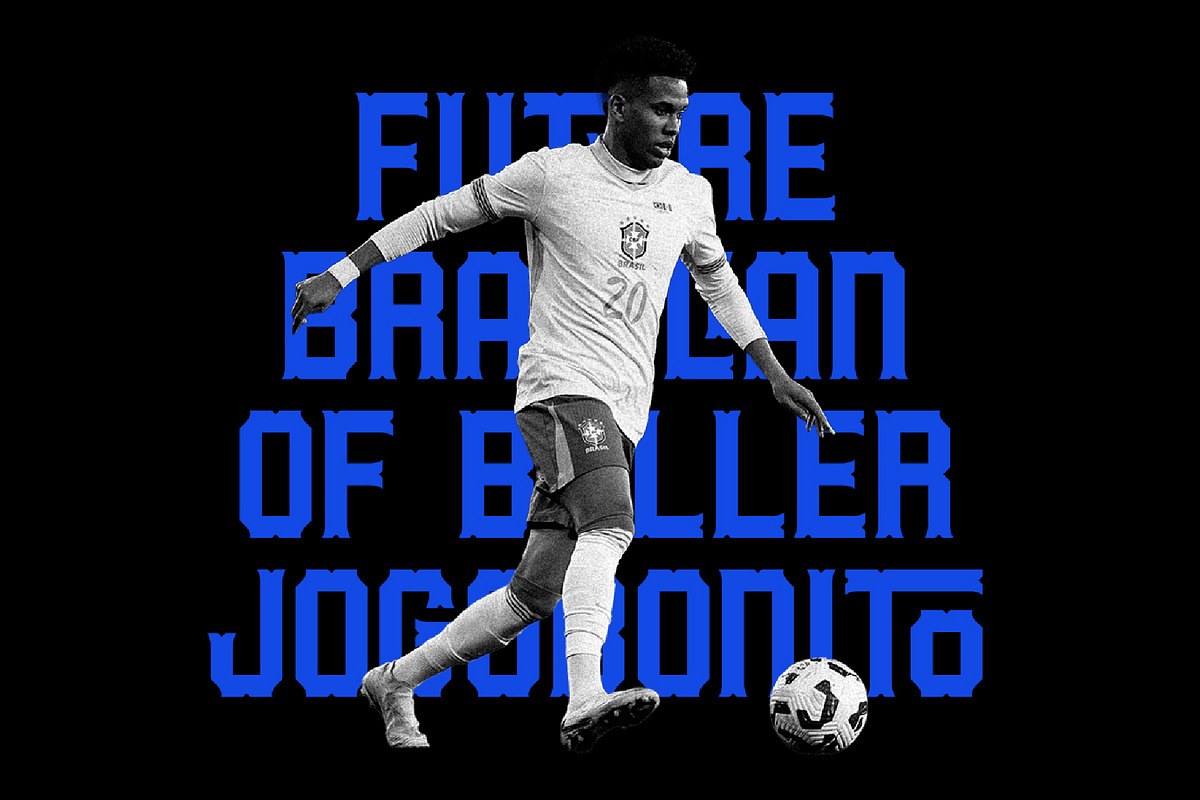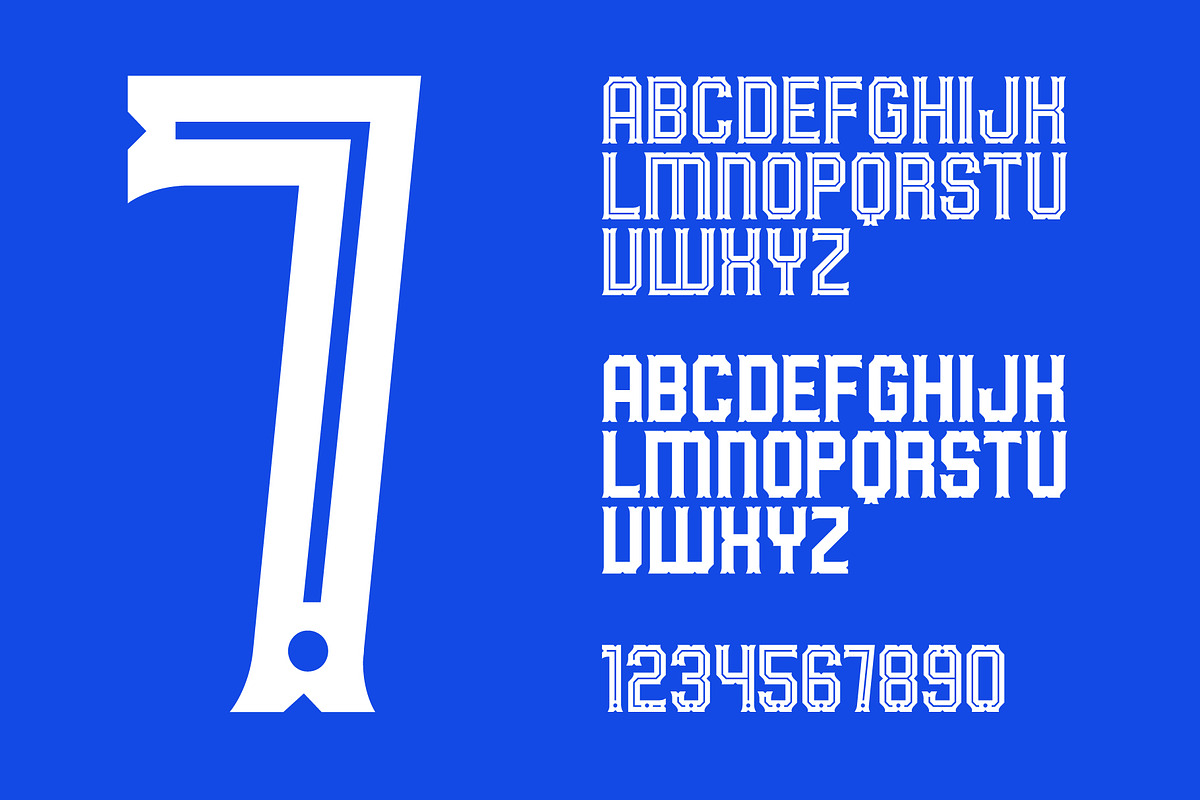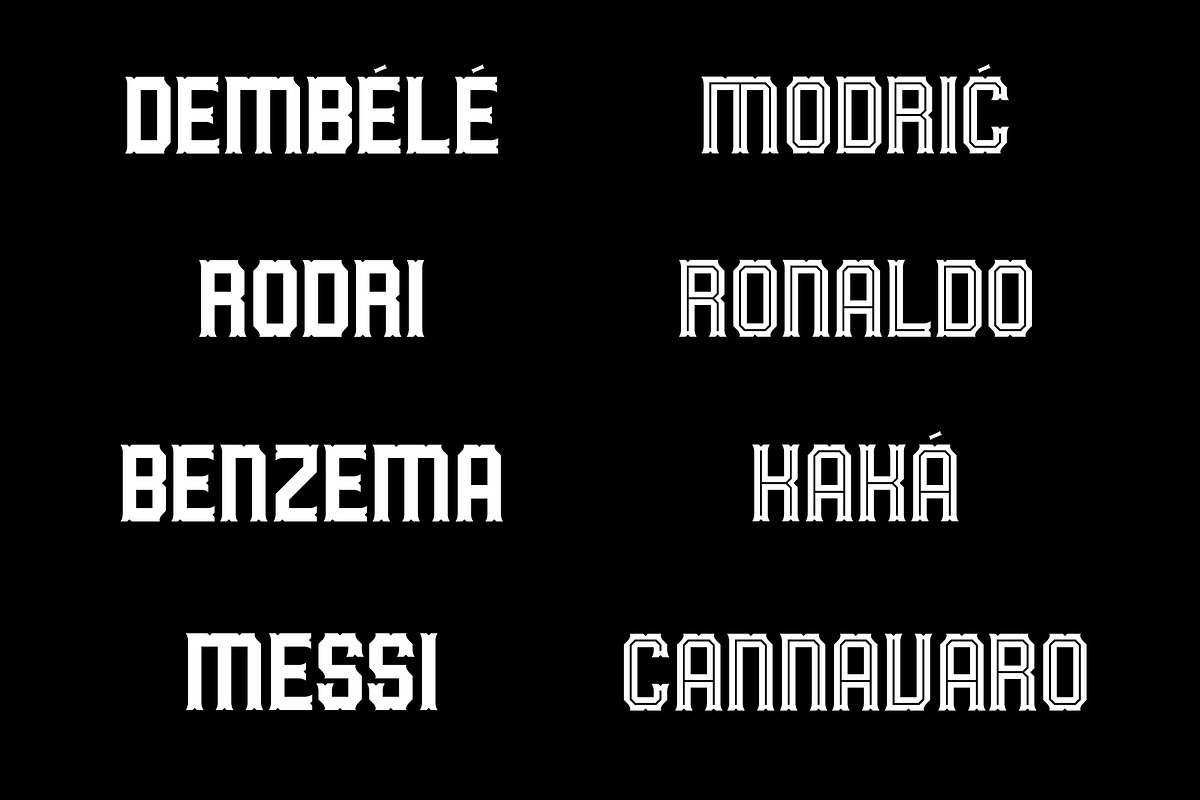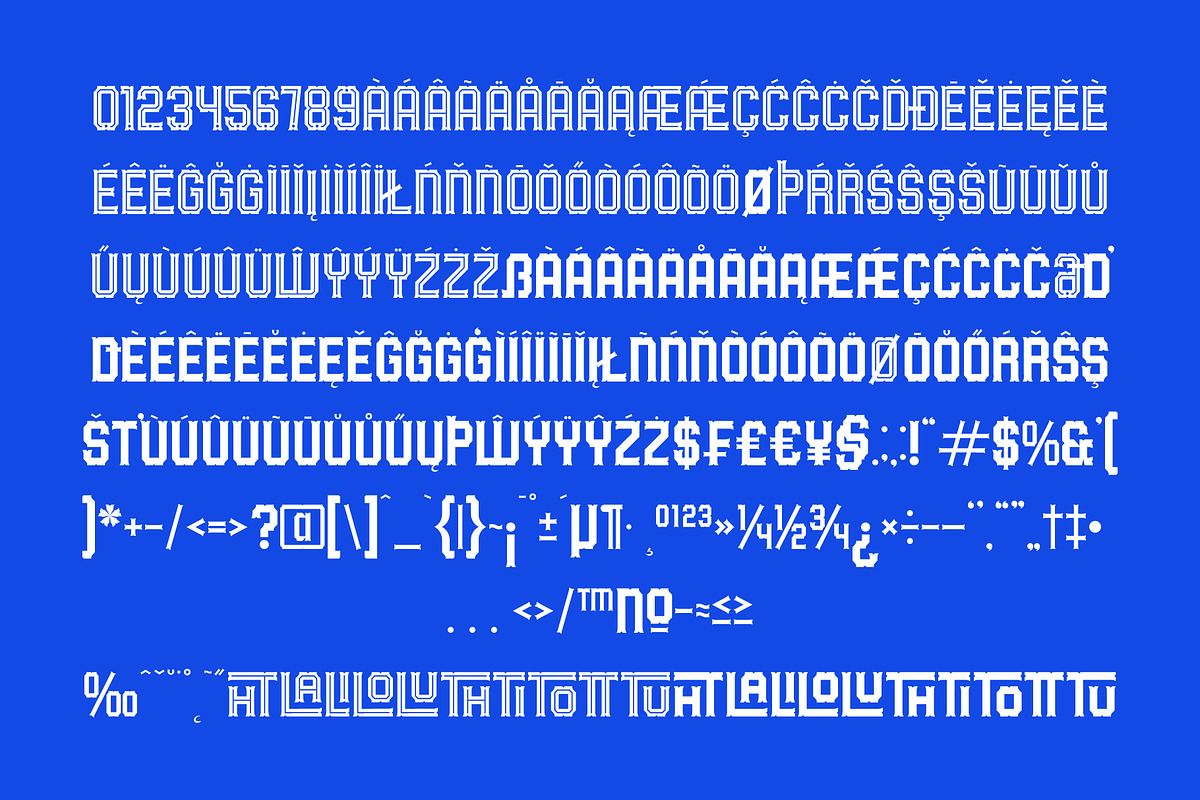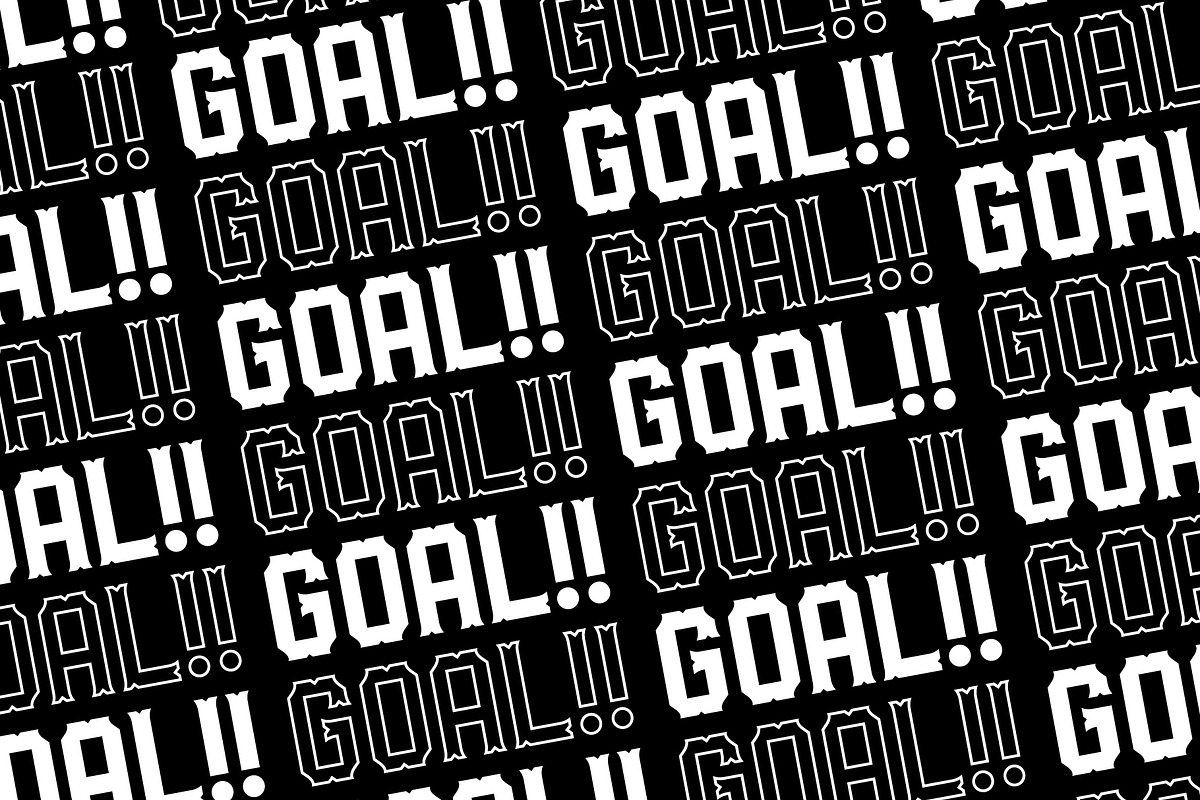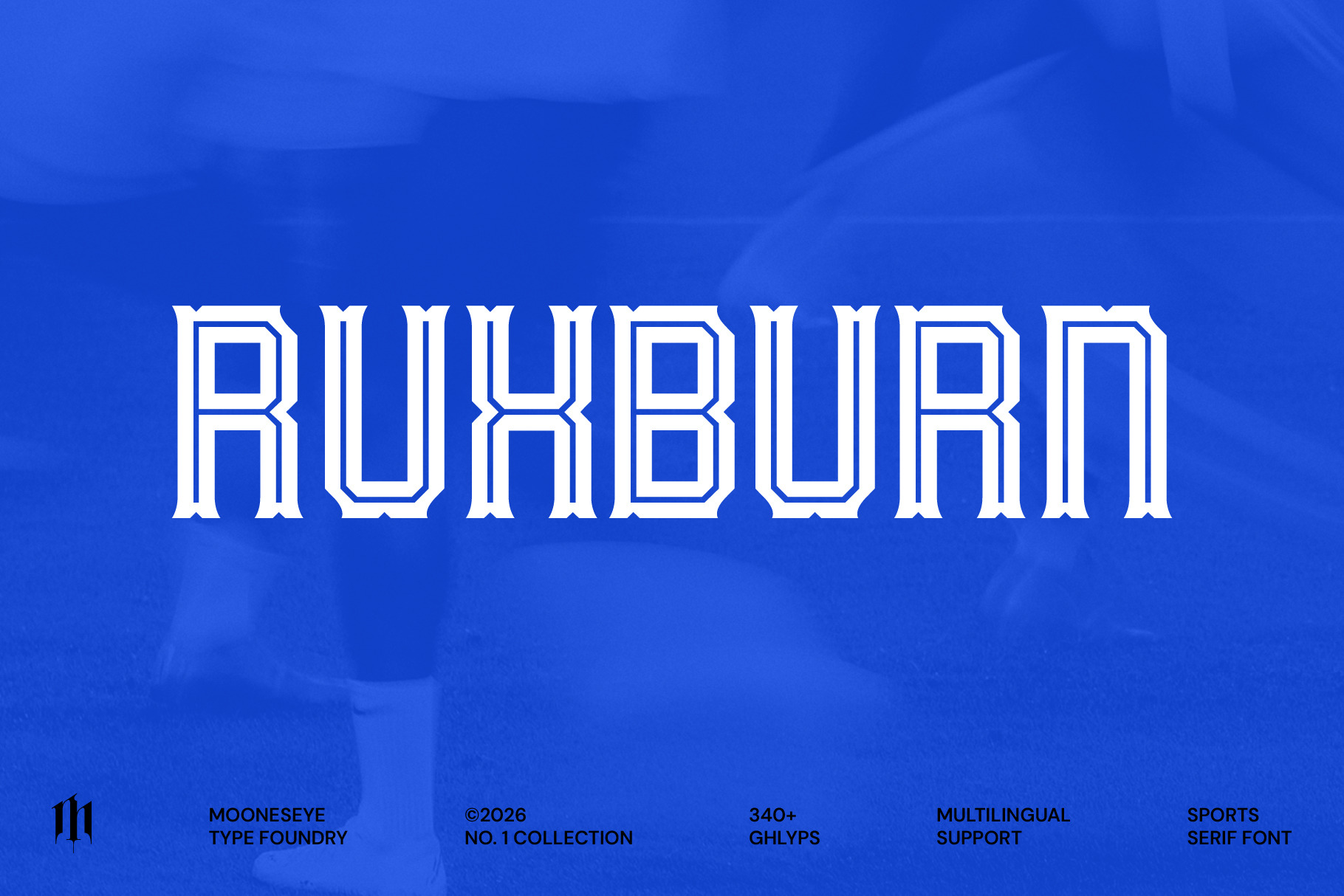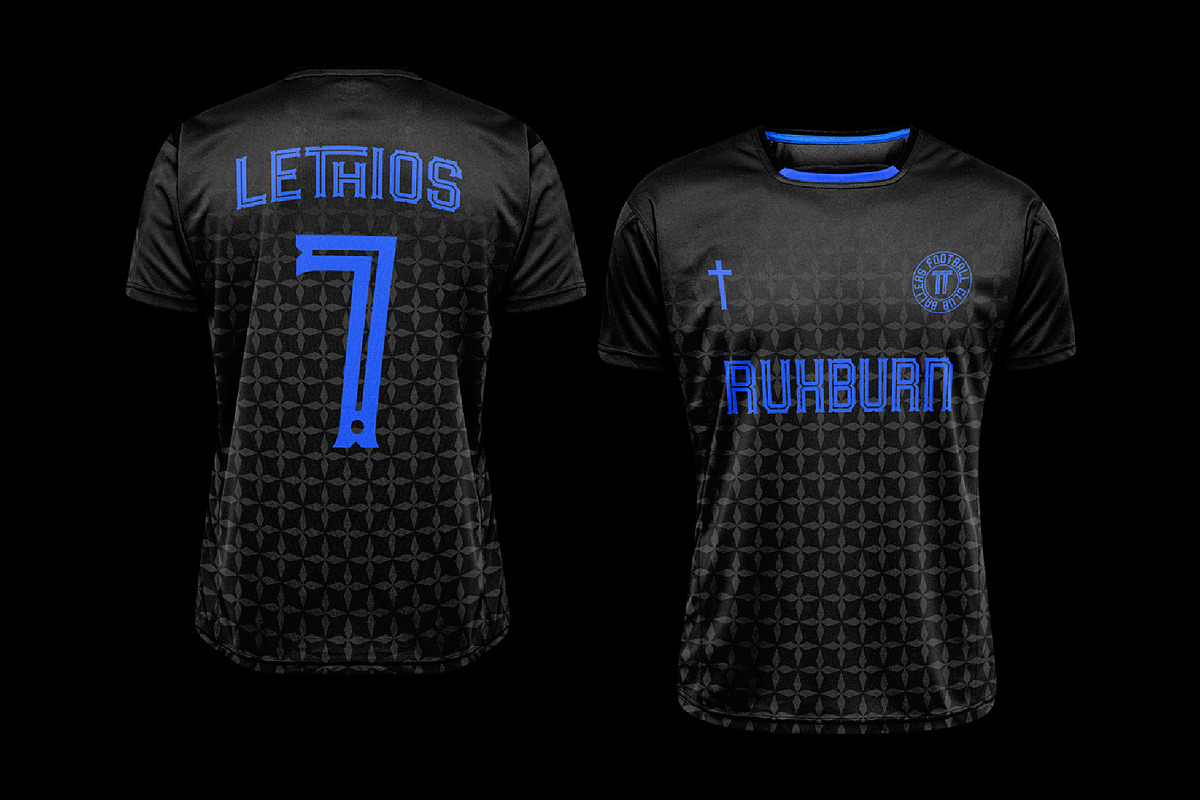
Ruxburn - Modern Sports Serif Font
Are you ready to elevate your branding to the big leagues? Meet Ruxburn, a powerhouse typeface that blends the raw intensity of modern street culture with the disciplined precision of professional stadium graphics. Whether you are designing the next iconic football jersey or a high-octane e-sports logo, Ruxburn delivers a look that is both "heavyweight" and incredibly sleek.
Stop settling for generic "varsity" styles. Ruxburn offers a unique chiseled architecture that feels fast, strong, and undeniably premium. Use the Solid version for bold, punchy headlines that demand attention, or switch to the Inline version to create sophisticated, multi-layered looks perfect for high-end apparel and merchandise.
Why you’ll love Ruxburn:
- Dual-Style Power: Mix and match Solid and Inline styles for instant depth.
- Massive Character Set: Includes over 340+ glyphs to handle any project.
- Global Readiness: Full multilingual support for international branding.
- Unique Details: Sharp geometric terminals and spurred edges for a custom look.
- Pro Ligatures: Custom decorative ligatures to make your typography look hand-crafted.